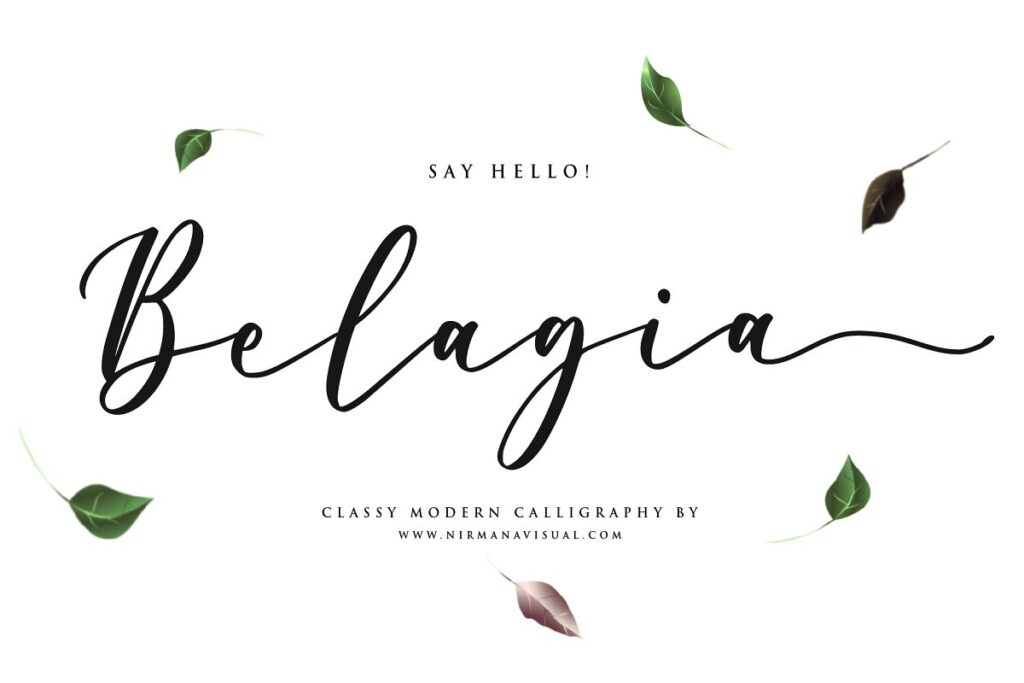
Belagia is a Beautiful script font carefully created with a touch of romantic. This is a beautiful combination of timeless elegance and authentic calligraphy, It has lowercase beginning and ending swashes.